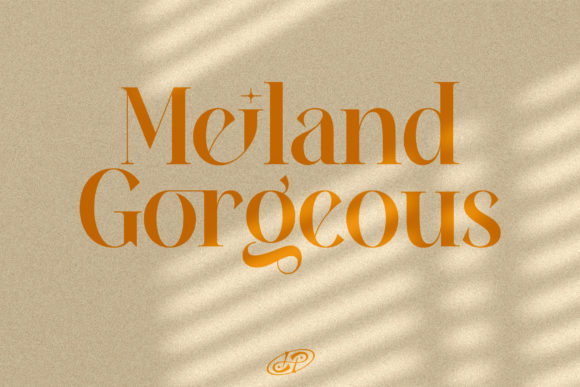
Journey into the Realm of Elegance with Meiland Gorgeous, a Serif Font That Redefines Beauty
In the vast world of typography, there lies a font that captivates hearts with its timeless allure. Meiland Gorgeous, a serif font of exquisite beauty, beckons you to embark on a journey of visual artistry. Handcrafted by the masters at handpik, this font is not just a collection of letters; it's an expression of creativity, a testament to the power of design.
With its bold strokes and distinct character, Meiland Gorgeous possesses an undeniable presence. Each letterform is a work of art, meticulously crafted to convey elegance and sophistication. Whether you're designing display ads, crafting logos, or creating social media graphics, this font will elevate your creations to new heights.
Harness the Power of Meiland Gorgeous and Witness Your Designs Transform
Meiland Gorgeous is not just another font; it's an investment in your creative arsenal. Its versatility knows no bounds, allowing you to effortlessly adapt it to a multitude of projects. Unleash your imagination and explore the endless possibilities that await.
Immerse yourself in the world of display ads and let Meiland Gorgeous captivate your audience. Its bold strokes and commanding presence will grab attention, leaving a lasting impression that lingers in the minds of viewers. Create logos that exude professionalism and sophistication, leaving a mark of excellence that sets your brand apart from the rest.
Step into the realm of social media graphics and let Meiland Gorgeous ignite your creativity. Its distinct character will add a touch of elegance to your posts, stories, and reels, making them stand out from the crowd. Engage your audience with visually stunning content that leaves them craving more.
Experience the Beauty of Meiland Gorgeous and Transform Your Creative Endeavors
Meiland Gorgeous is more than just a font; it's an experience of visual delight. Its timeless allure will add a touch of magic to your designs, leaving your audience spellbound. Embrace the beauty of this serif font and watch as your creations flourish with elegance and sophistication.
Let Meiland Gorgeous be your muse, inspiring you to create masterpieces that transcend time. Its versatility will become your ally, empowering you to conquer any creative challenge that comes your way. Discover the limitless potential of this font and unlock the true power of design.